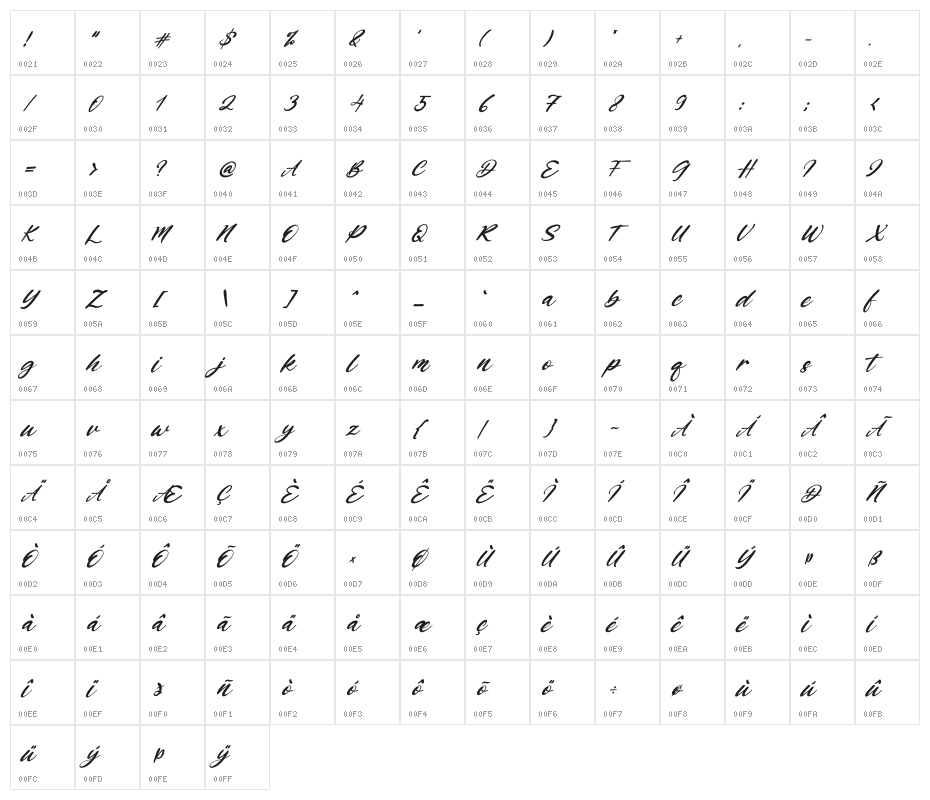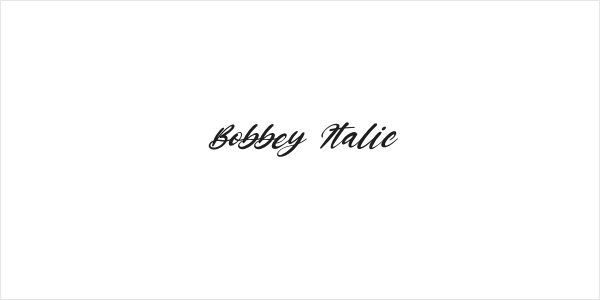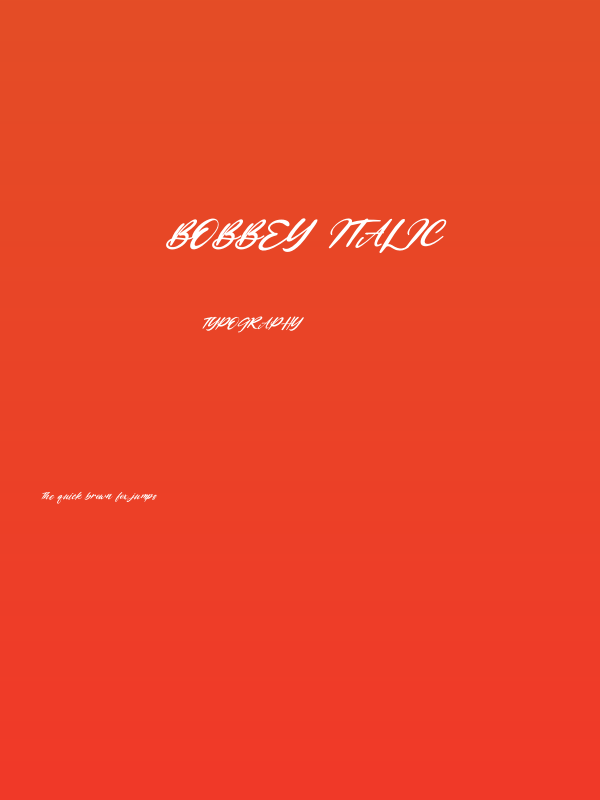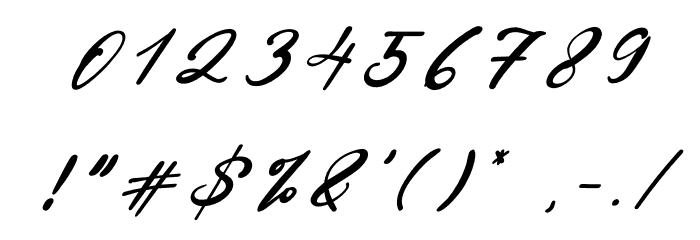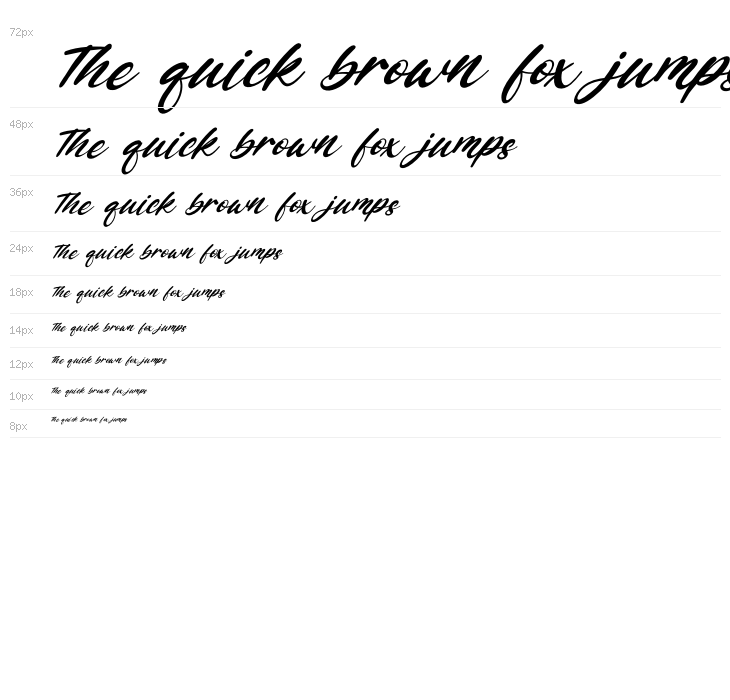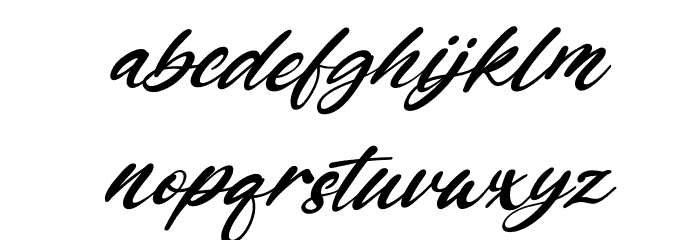
Bobbey Italic Font
This font features an elegant, flowing script style with a distinct italic slant, giving it a dynamic and sophisticated appearance. The characters are interconnected, creating a seamless and fluid look that mimics natural handwriting. The strokes are smooth and consistent, with a moderate thickness that provides good readability while maintaining an artistic flair. The uppercase letters are bold and prominent, while the lowercase letters are more delicate, adding a touch of grace. The numerals and special characters are designed to match the overall style, ensuring a cohesive appearance across all text. This font is ideal for projects that require a personal, handwritten touch.